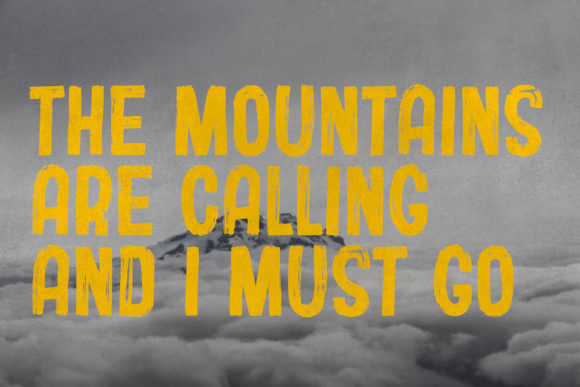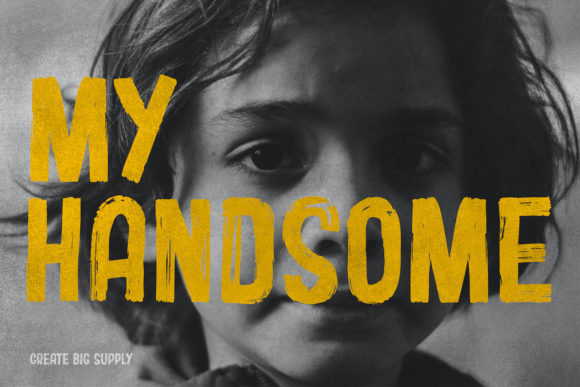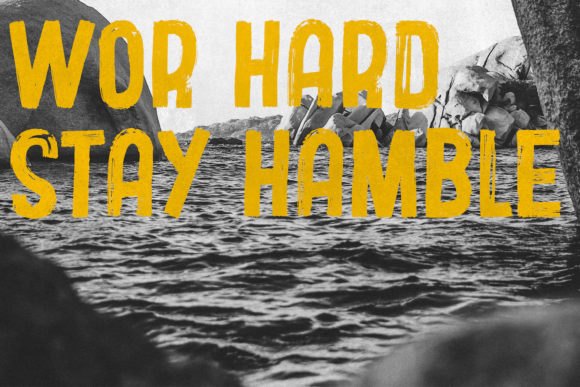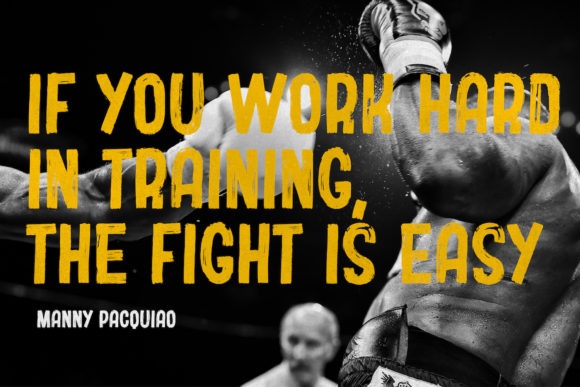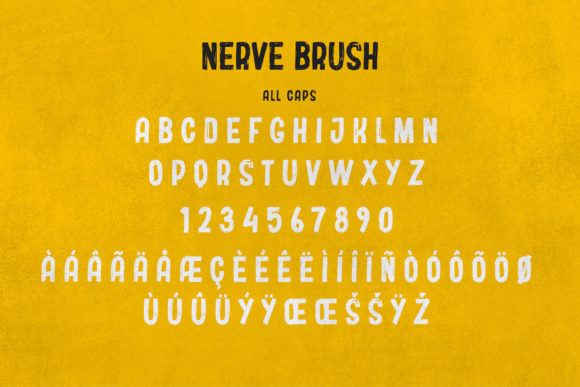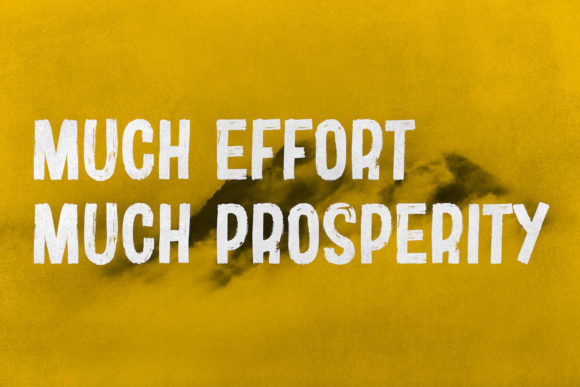
Introduction to Nerve Brush Font
Have you ever stared at a blank canvas, waiting for the perfect font to bring your creative project to life? That moment of excitement and anticipation is what makes design so thrilling. And, as a designer, you know that the right font can make all the difference in elevating your work to the next level.
That’s where the Nerve Brush Font comes in – a cool and unique display font that’s sure to give your project a boost. With its bold and strong characters, this font is perfect for adding a touch of sophistication to your design. Plus, its brushed texture and neat appearance make it a high-quality design resource that’s sure to impress.
Key Features of Nerve Brush Font
- High-quality, free font designed for creative projects and various design resources.
- Transparent background allows for seamless integration with any design or image.
- Unique brush-style design adds a creative touch to any project, setting it apart from other fonts.
Honest Review: Nerve Brush Font
I recently stumbled upon the Nerve Brush Font while searching for a unique design resource for a creative project. I was immediately drawn to its quirky and organic feel, which I thought would add a nice touch to my design.
Here are some things that work well with the Nerve Brush Font:
- ✨ It has a high quality, transparent background, which allows for seamless integration with other design elements.
- ✨ The font is versatile and can be used for a wide range of creative projects, from logos to brochures.
However, I did encounter some limitations with the Nerve Brush Font:
- ⚠️ The font may not be suitable for very formal or corporate designs, as its quirky feel may not be suitable for all audiences.
- ⚠️ The font can be a bit difficult to read in certain contexts, particularly when used at small sizes.
Overall, I think the Nerve Brush Font is a great addition to any designer’s toolkit. While it may have some limitations, its unique feel and high quality make it a valuable resource for creative projects. I would definitely recommend it to anyone looking for a free and versatile design font.
Nerve Brush Font
The Nerve Brush Font is a high-quality design resource perfect for creative projects. With its unique texture and modern style, it’s an ideal choice for designers looking to add a touch of elegance to their work.
Tips for Getting the Most Out of Nerve Brush Font
To get the most out of Nerve Brush Font, be sure to use it on a transparent background to really make it pop. You can also experiment with different font sizes and styles to create unique and eye-catching designs.
The Nerve Brush Font is perfect for a variety of creative projects, including:
Alternatives to Nerve Brush Font
The Great Vibes Font is a high-quality, handwritten script font ideal for creative projects that require a personal touch. It’s perfect for wedding invitations, event promotions, or any design that needs a touch of elegance.
Compared to Nerve Brush Font, Great Vibes Font offers a more refined and sophisticated look, making it suitable for formal events and high-end branding. However, it lacks the quirky, hand-painted feel of Nerve Brush Font.
Pacifico Font is a beautiful, modern script font with a transparent background, making it perfect for designs that require a clean and minimalist look. It’s ideal for creative projects such as logos, brochures, and business cards.
Q: Is the Nerve Brush Font suitable for print or digital use?
The Nerve Brush Font is designed for digital use, but it can also be used for print projects. However, please note that the font’s high-quality design may not translate perfectly to print, and you may need to adjust the font size and style accordingly.